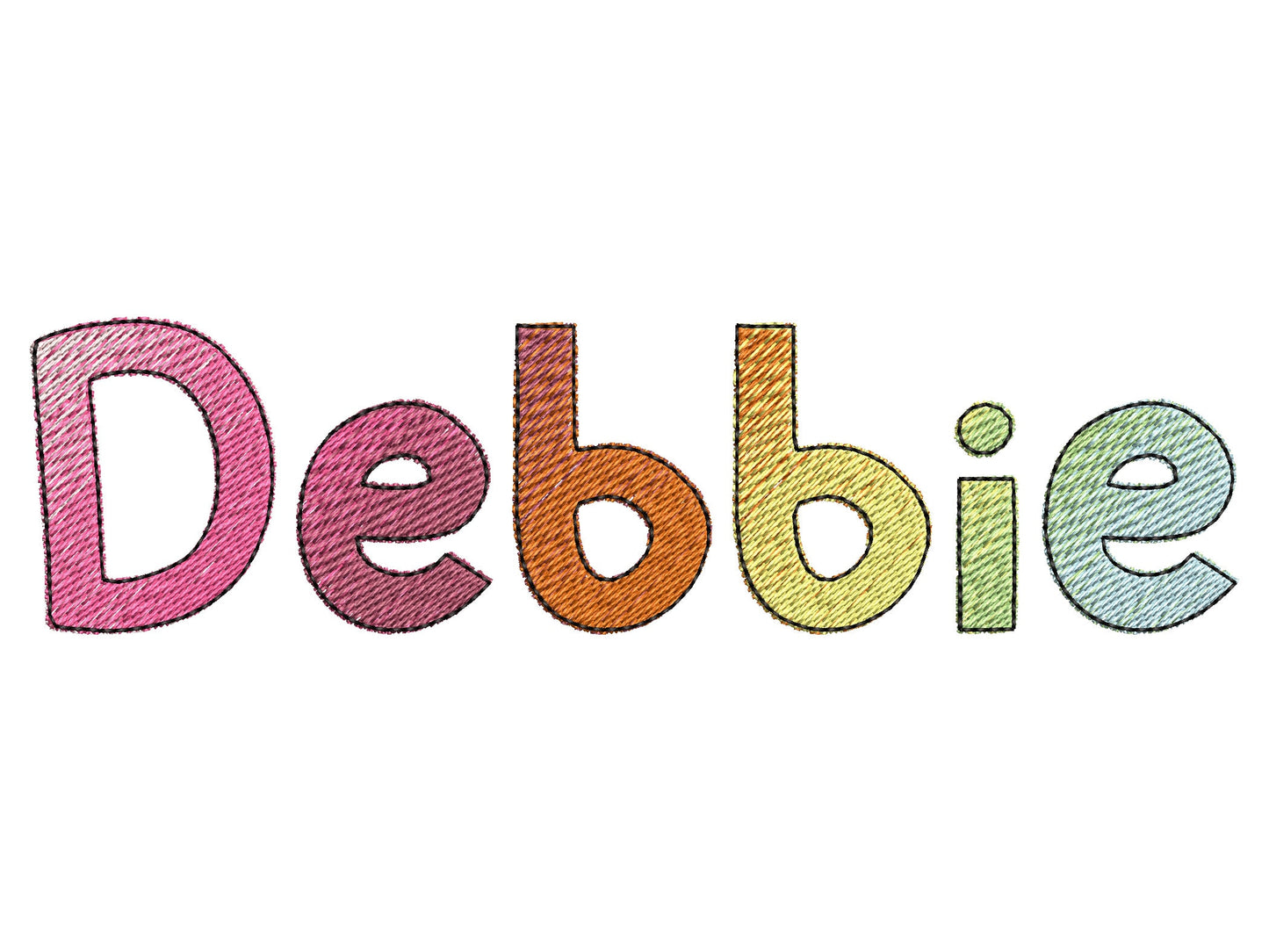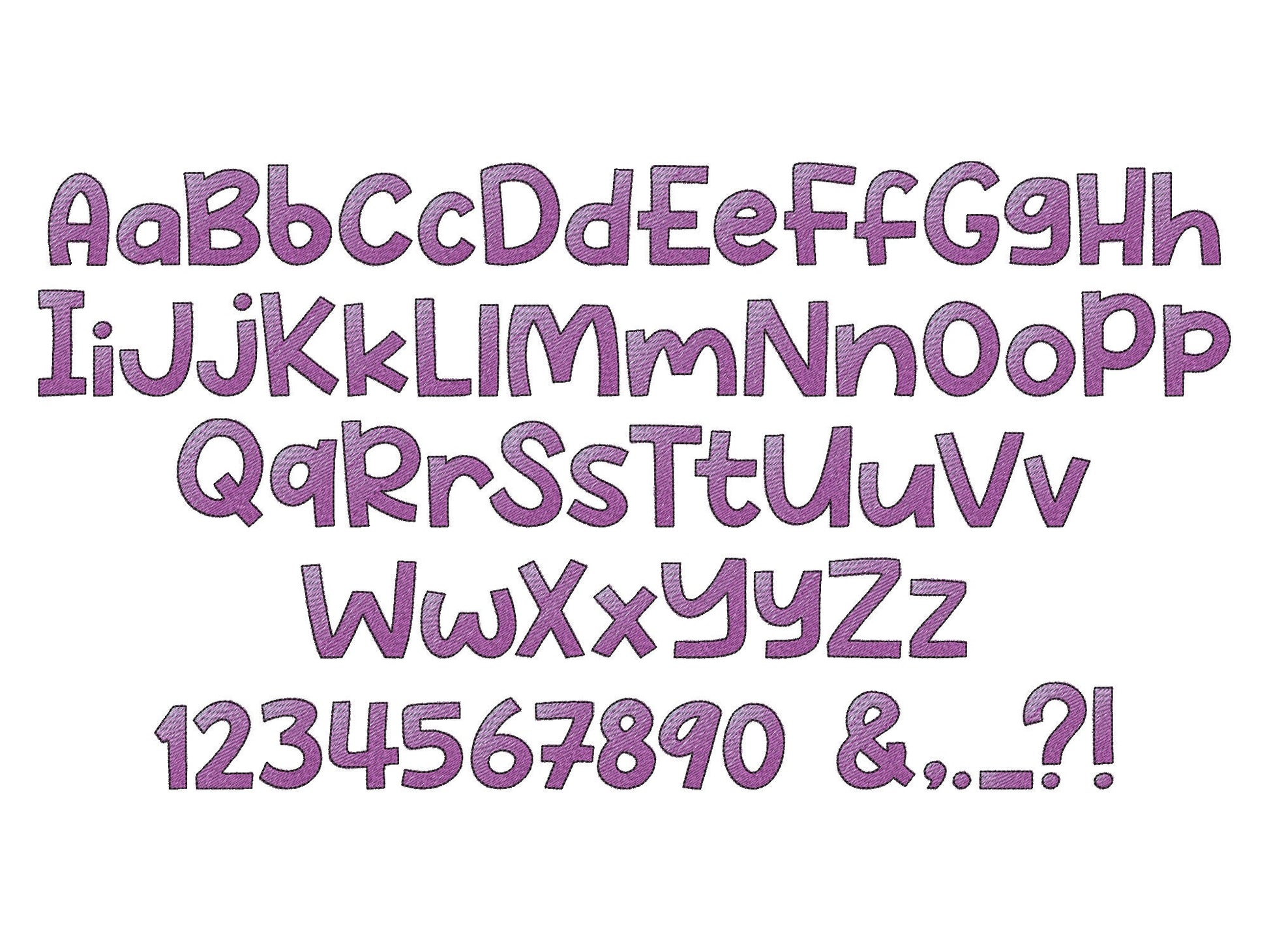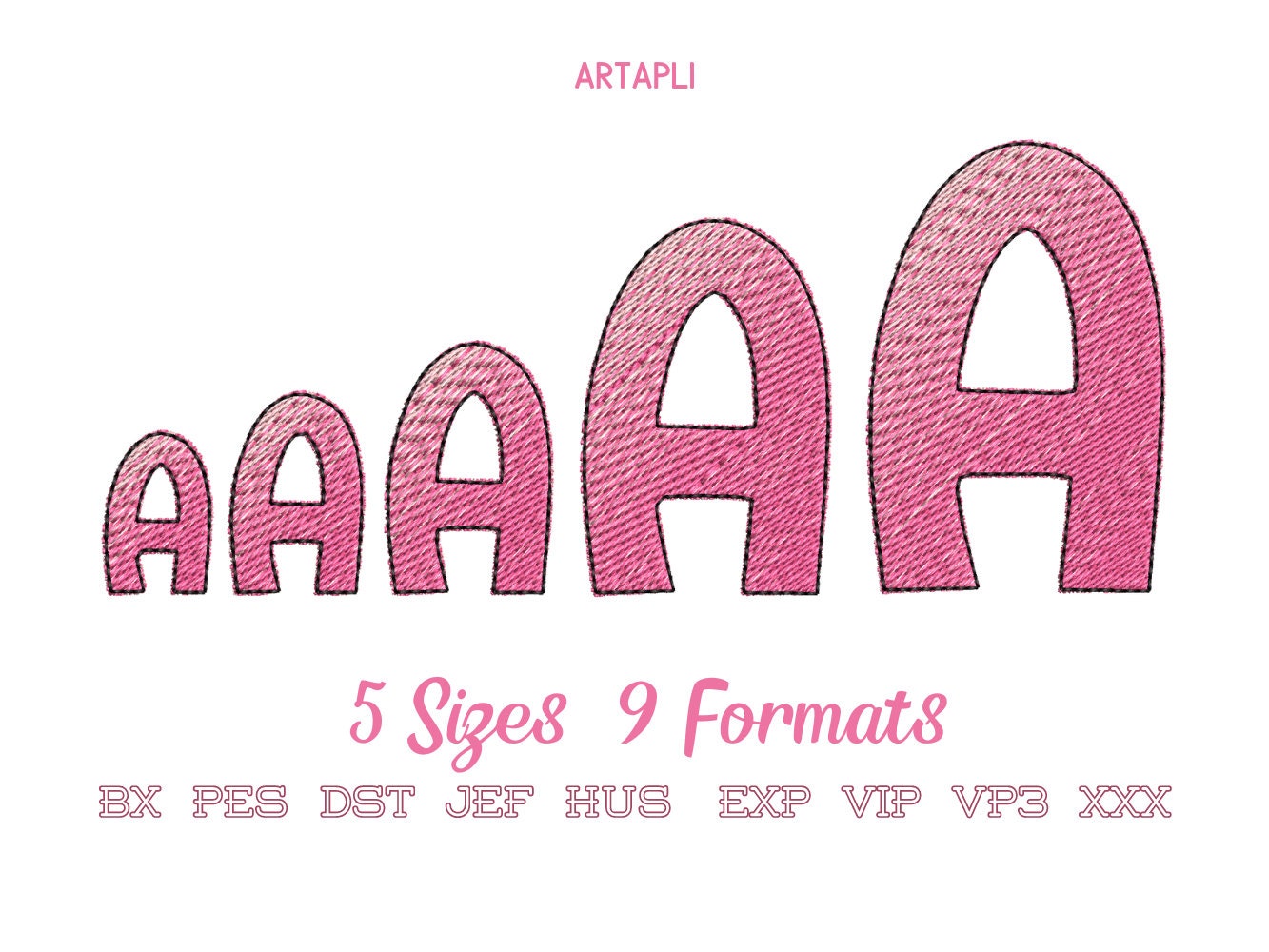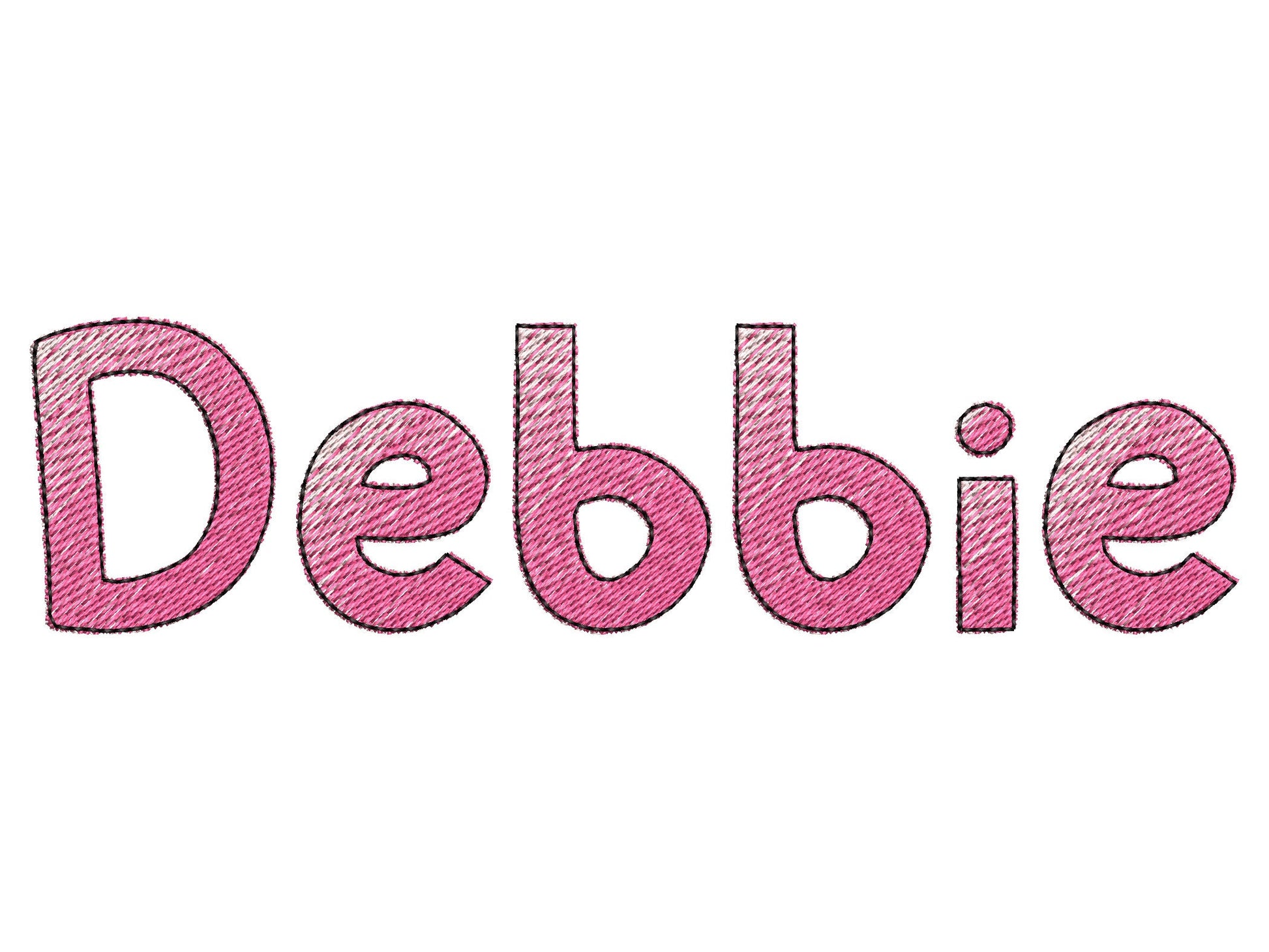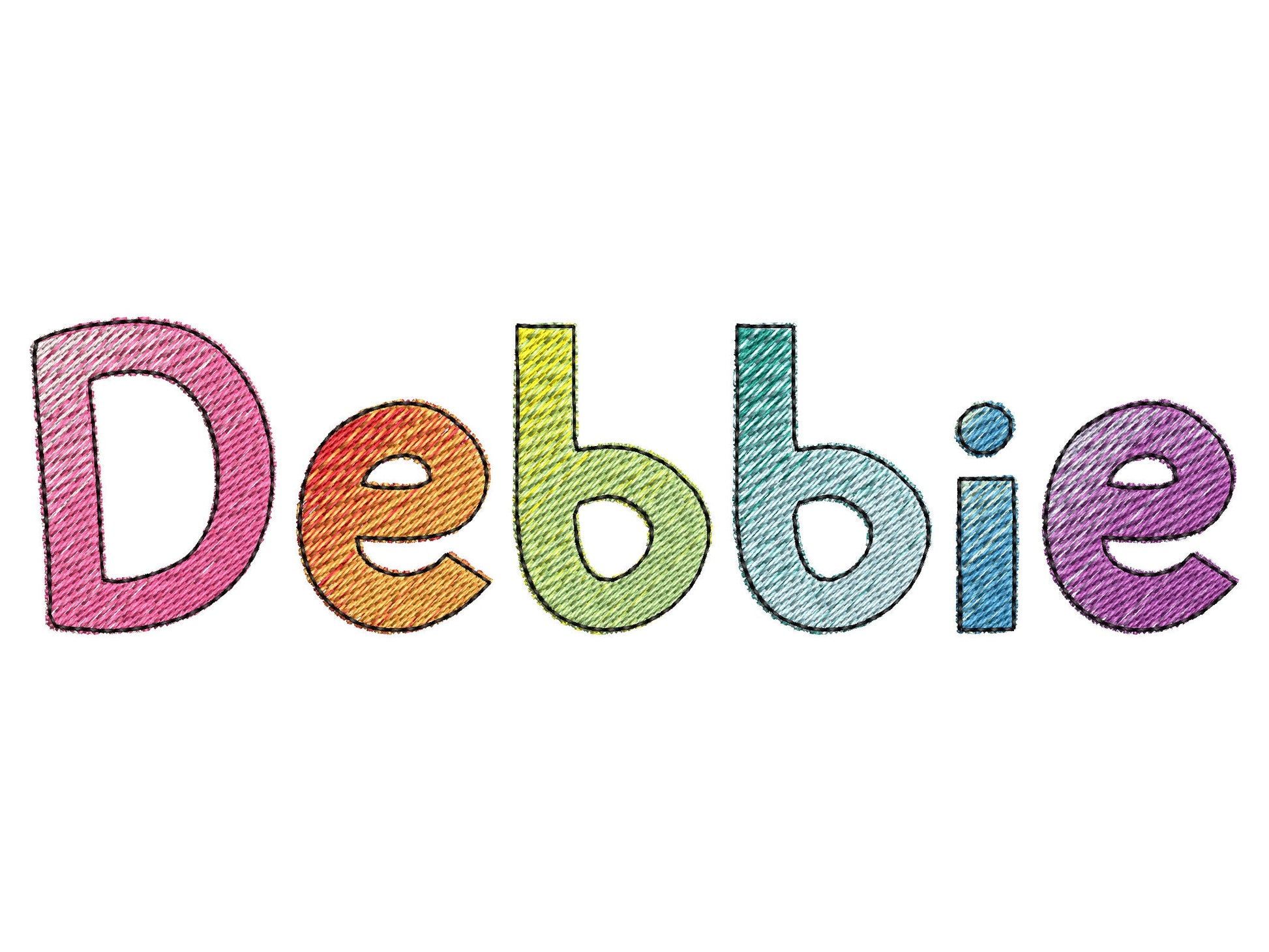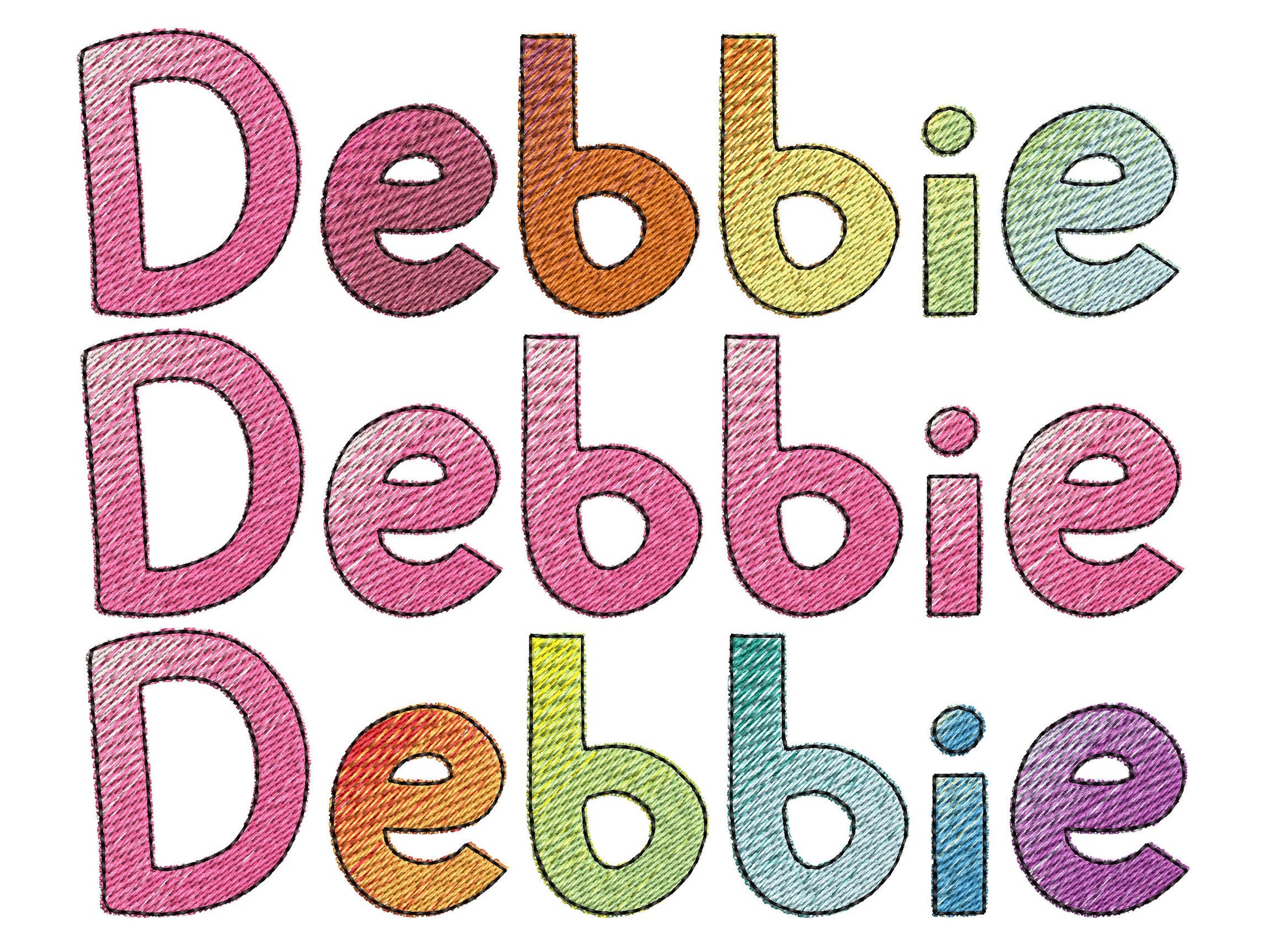
Rainbow Iridescent Font
Or click to open the linkA rainbow iridescent font stitched with two ordinary thread colors per letter, no special thread needed. Play with any color pair for names and sayings.
Uppercase and lowercase letters, numbers 0 to 9 and punctuation, in six sizes: 1, 1.2, 1.5, 2, 2.3 and 2.7 inches.
- Rainbow iridescent 2-color font
- Uppercase and lowercase letters, numbers 0-9, punctuation
- 6 sizes, 1 to 2.7 in